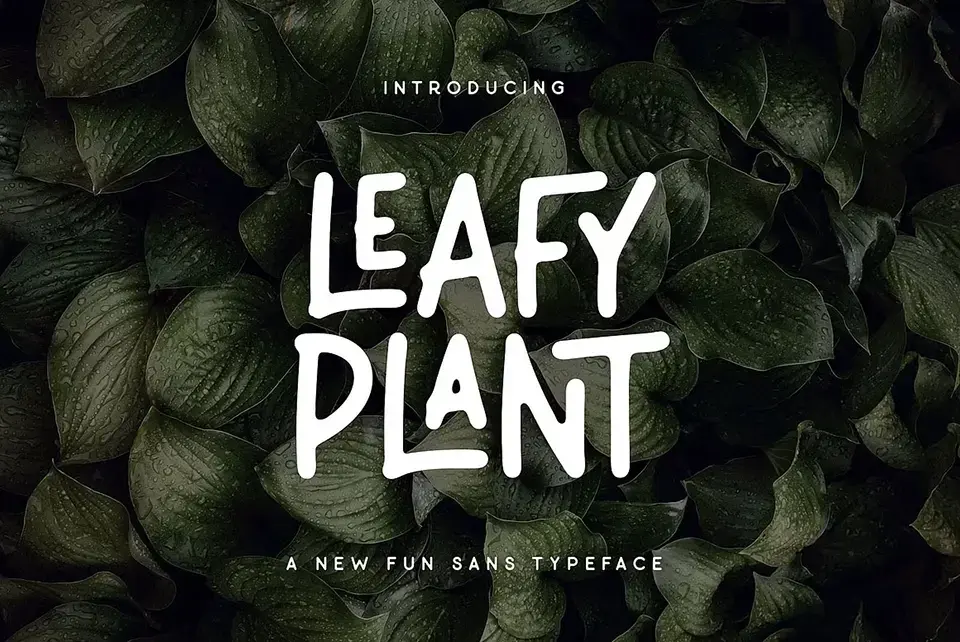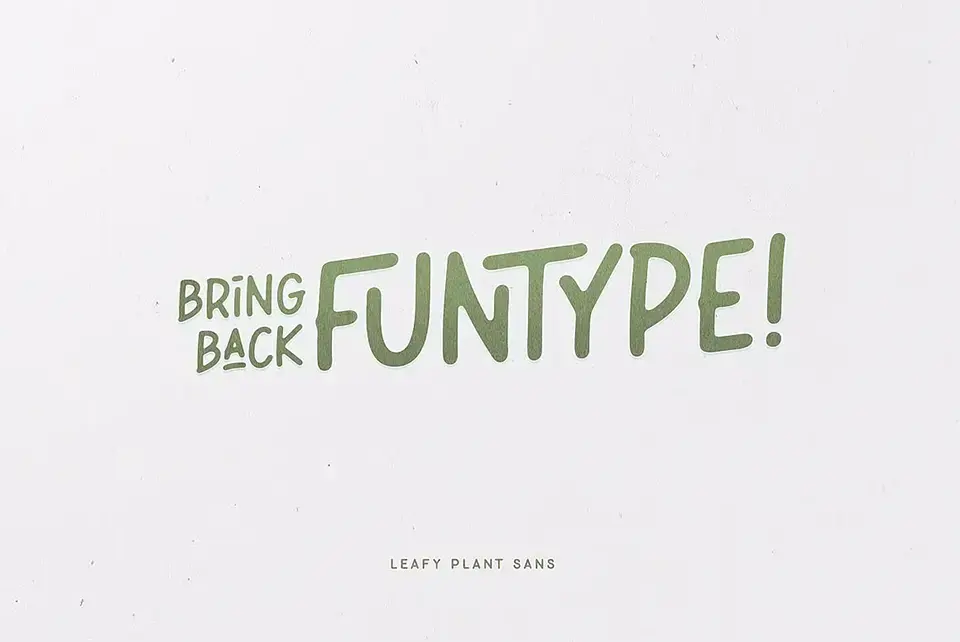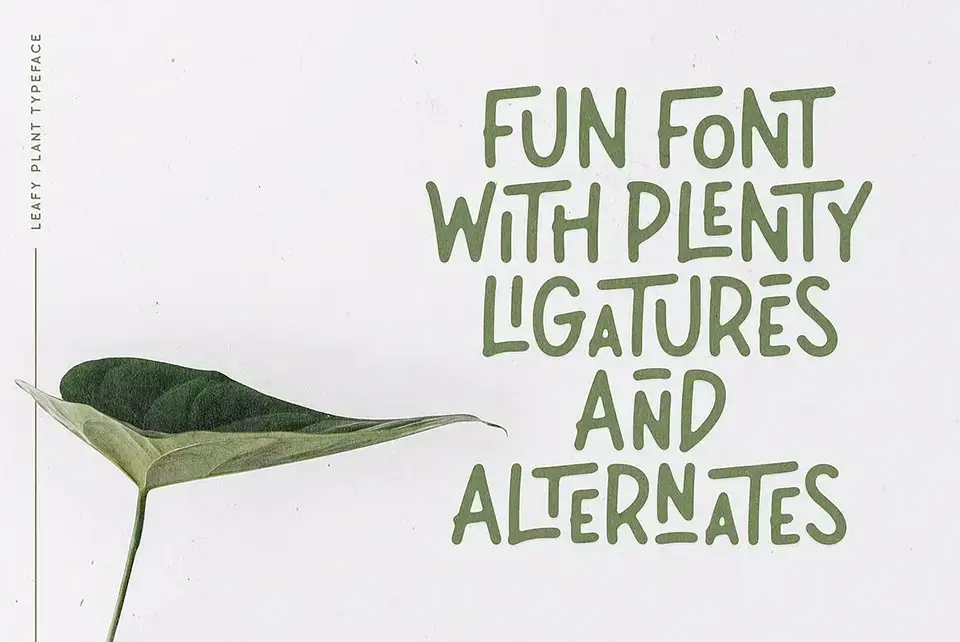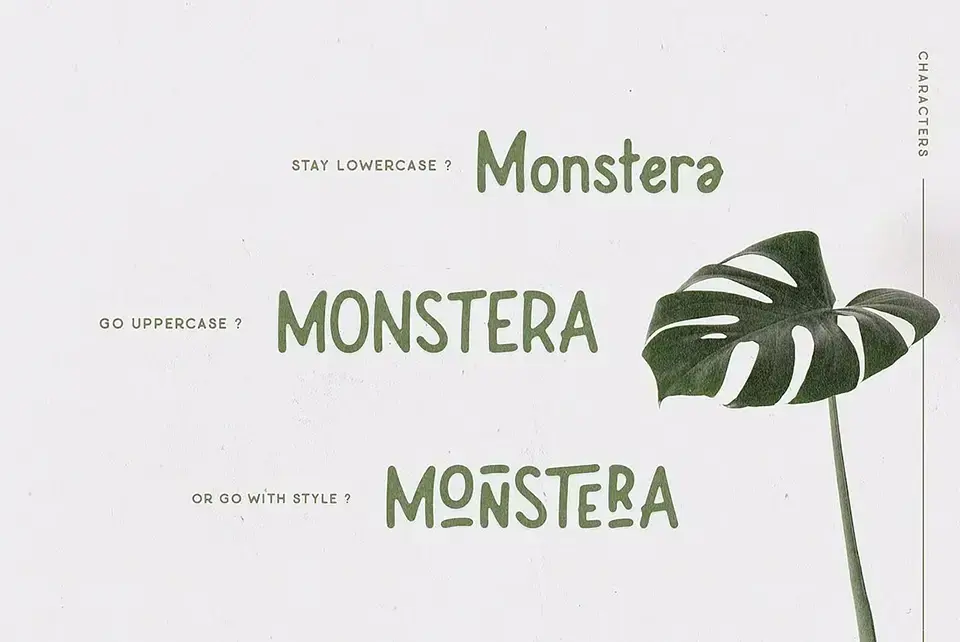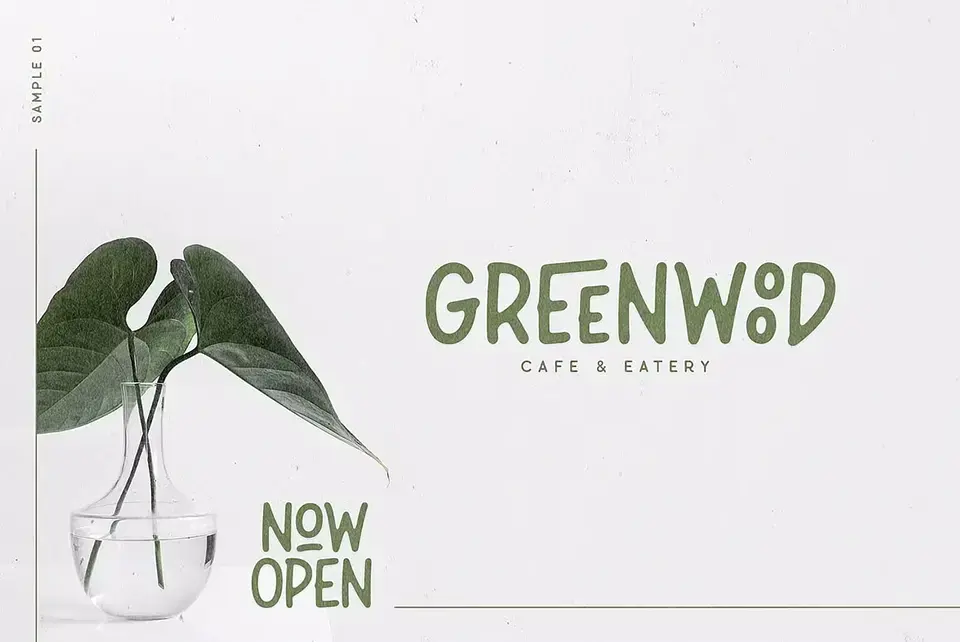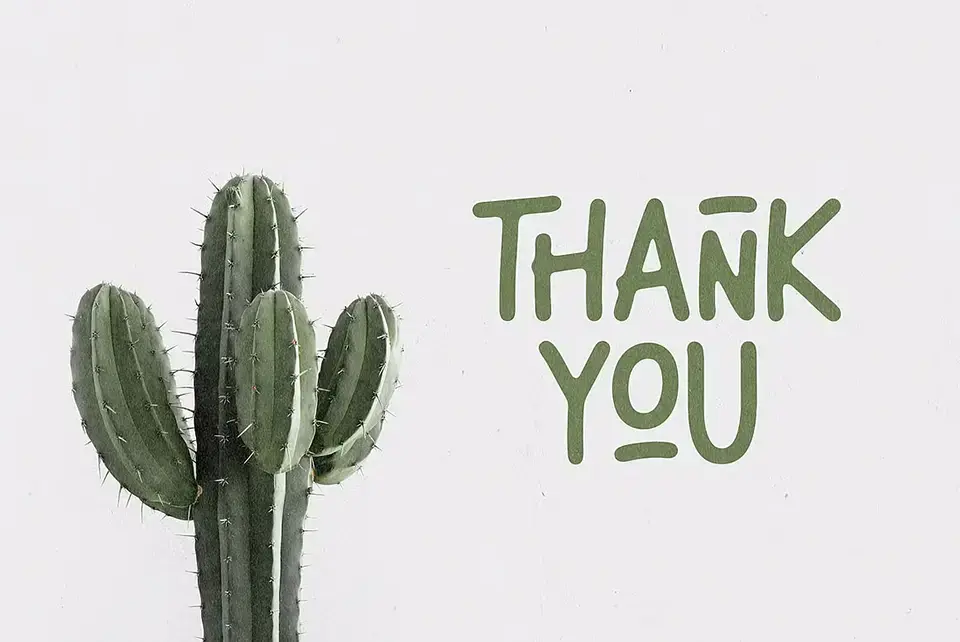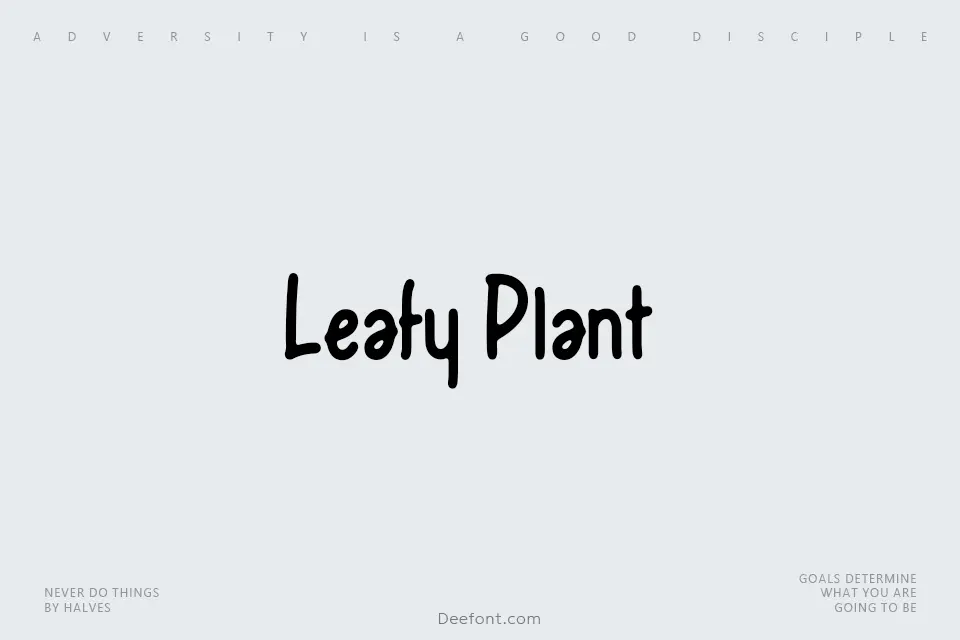
Leafy Plant Font
Leafy Plant Sans is a clean, unique rounded sans-serif display typeface designed to bring fresh, fun typography back into popular use. Featuring smooth, rounded edges that evoke feelings of warmth and approachability, this font combines modern simplicity with playful character design. With extensive alternate characters and ligatures built in, it offers designers creative flexibility for crafting eye-catching headlines, poster designs, product packaging, greeting cards, and promotional materials. Its friendly yet professional aesthetic makes it equally suitable for children's content, eco-friendly branding, casual invitations, and contemporary graphic projects that demand both readability and personality. The typeface works exceptionally well as a display font, scaling beautifully across digital and print mediums while maintaining its distinctive rounded charm and legible structure.